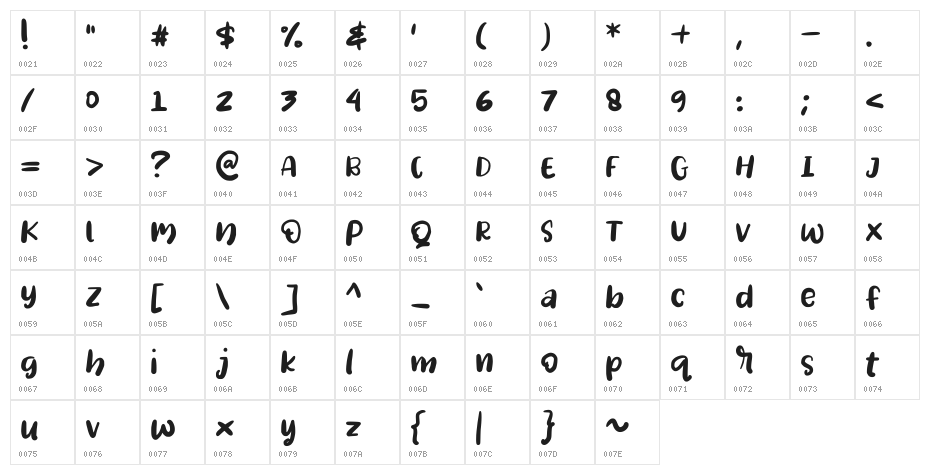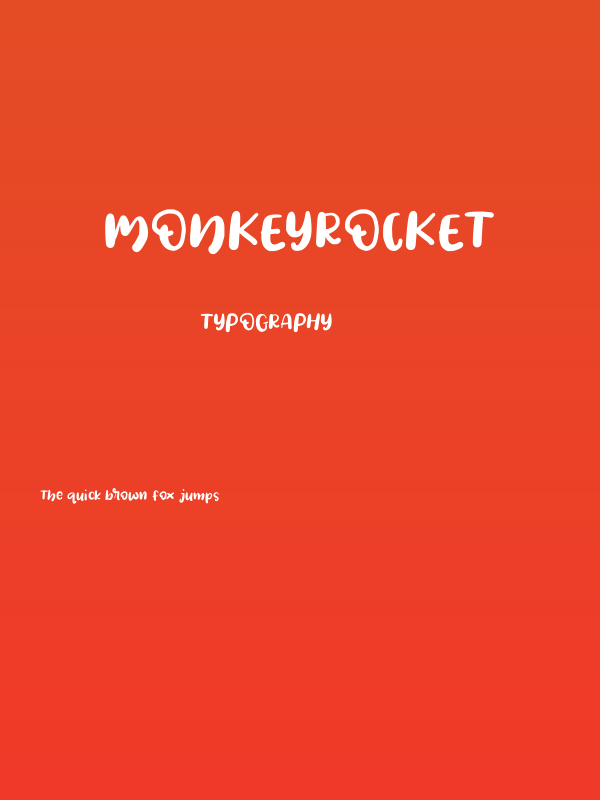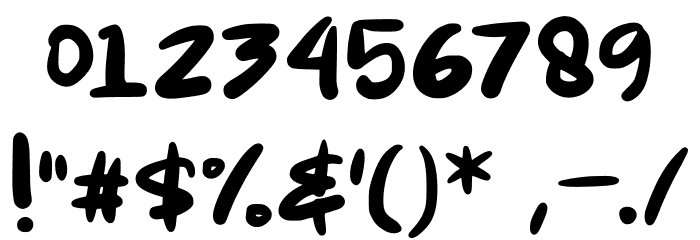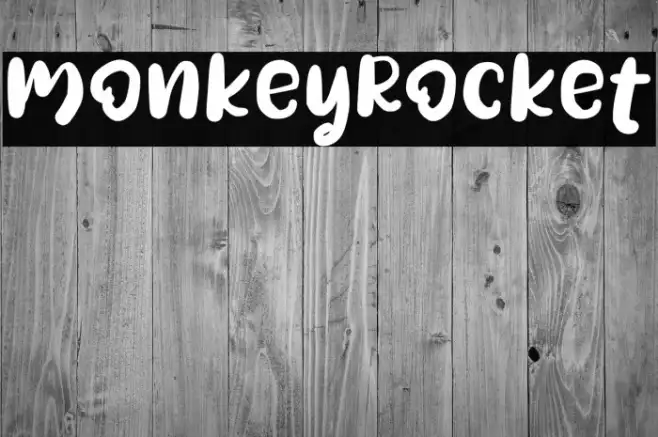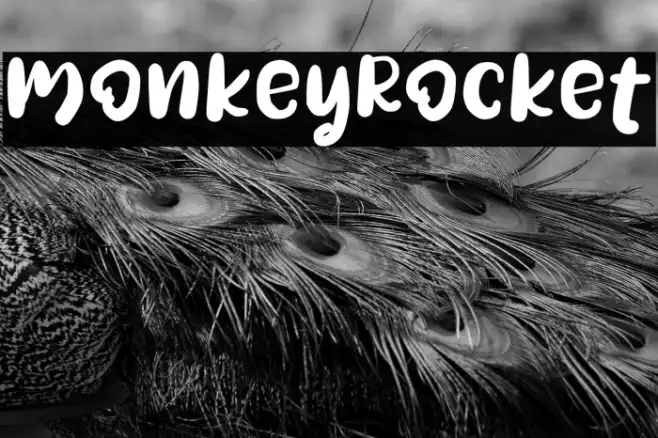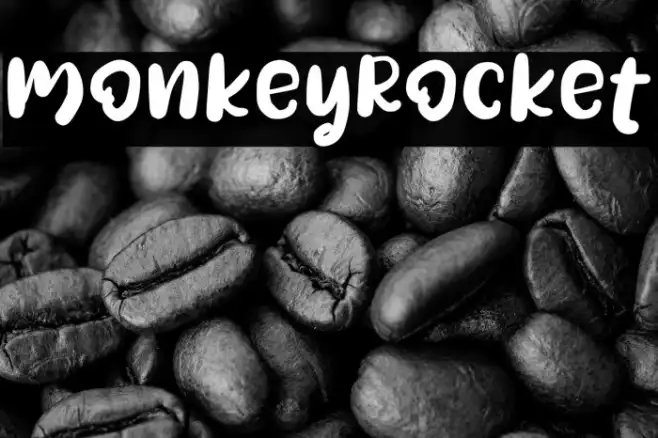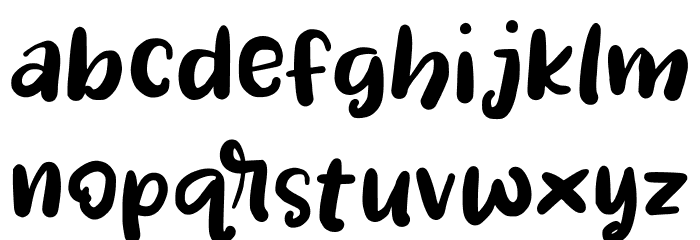
MonkeyRocket Font
MonkeyRocket Description
This playful and energetic font features bold, rounded strokes that convey a sense of fun and creativity. The letters have a hand-drawn quality, with slight variations in thickness that add to its charm. The uppercase and lowercase characters maintain a consistent style, with a slight slant that suggests movement. Numbers and special characters are equally expressive, making this font versatile for various design needs. Its whimsical nature makes it ideal for projects that require a touch of personality and flair.
| Proposed Projects | Perfect for children's books, playful branding, greeting cards, and creative posters. |